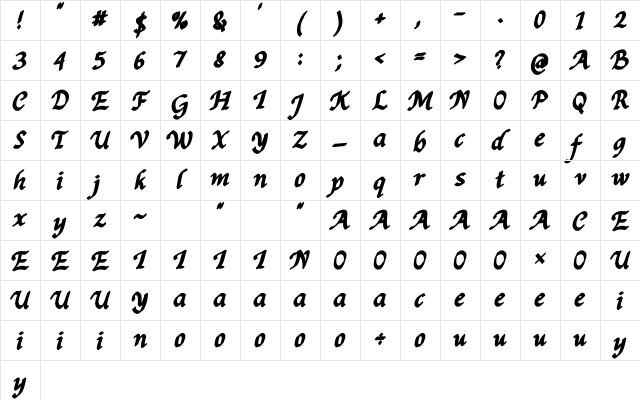
Complete Anabela Christmas OTF Personal Regular glyph index. Displaying only characters natively supported by Anabela Christmas OTF Personal Regular font.
Anabela Christmas OTF Personal is a composed and adaptable typeface that performs quietly and consistently across a wide range of design contexts.